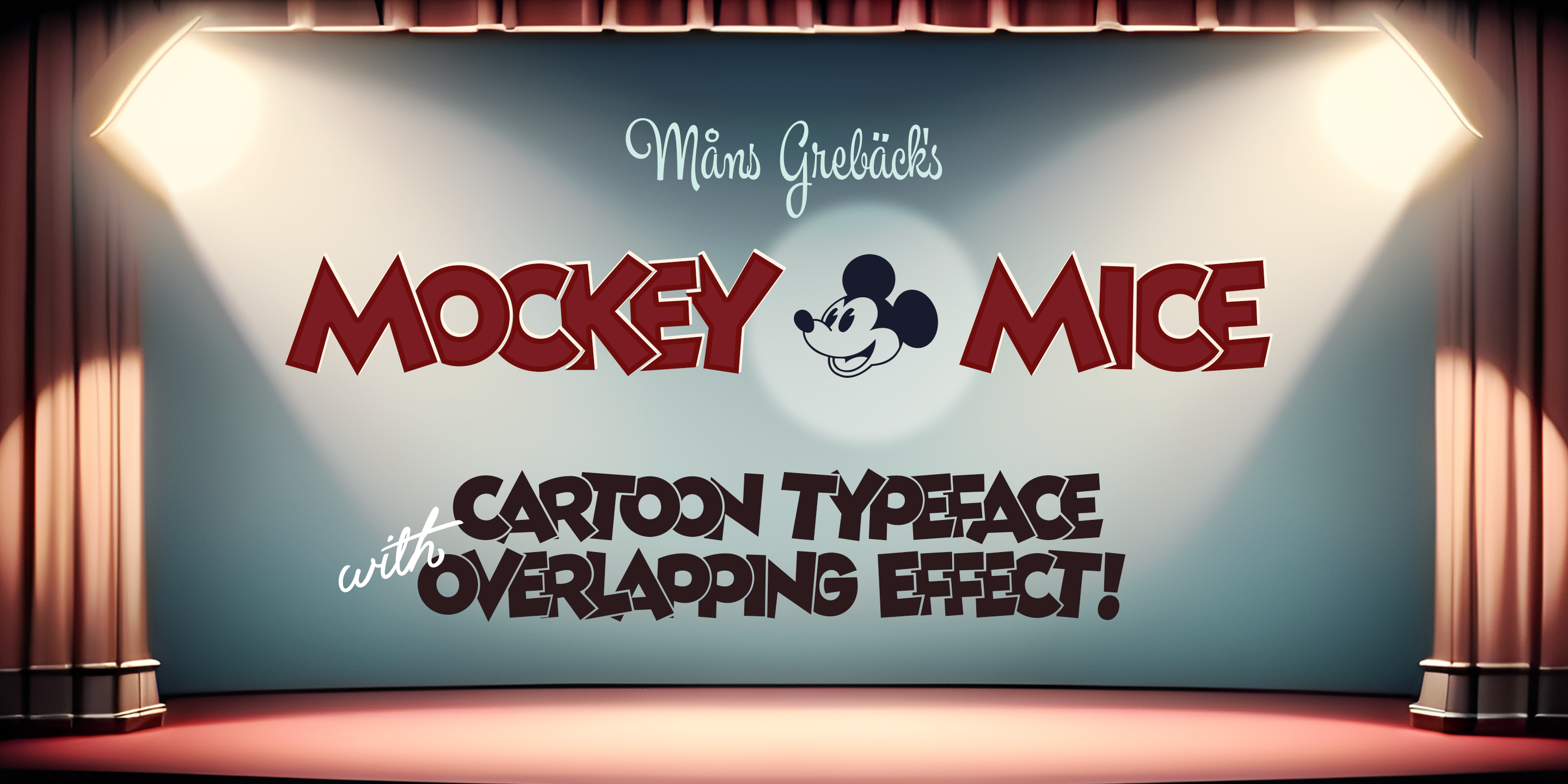
Mockey Mice Font is perfect for children's party invitations, cartoon animation titles, playful toy packaging, kids' entertainment branding, animated character logos, family fun center signage, and whimsical children's marketing that requires cute, animated typography.
This font is exciting because it captures the playful mischief and adorable charm of cartoon mice characters, featuring bouncy, animated letterforms that convey childlike wonder, playful energy, and the irresistible cuteness of beloved animated characters while maintaining delightful readability.
The Mockey Mice Font family includes regular and bold weights with playful variants, offering uppercase and lowercase letters, cartoon numerals, whimsical ornaments, cute punctuation marks, and animated decorative elements designed for children's entertainment applications.
Children's designers consistently choose Mockey Mice Font Free Download for projects requiring authentic cartoon character appeal and family-friendly entertainment value. This adorable typeface transforms ordinary children's communications into compelling statements of animated joy that immediately connect with young audiences and families seeking genuine cartoon magic and playful entertainment experiences. The font's whimsical character makes it exceptionally effective for children's entertainment companies, toy manufacturers, and family recreation venues where cartoon charm and child-friendly atmosphere must be communicated through every visual element. Its animated inspiration bridges classic cartoon traditions with contemporary children's marketing, making it invaluable for brands celebrating childhood imagination and family entertainment. The playfully crafted letterforms maintain their cartoon appeal across toy packaging and digital children's content, ensuring consistent brand recognition and animated atmosphere. Whether you're developing children's entertainment branding, creating animated character campaigns, or designing family fun center materials, this typeface provides the authentic voice and visual playfulness that distinguishes genuine children's entertainment from adult-oriented design, establishing immediate connection with families who appreciate cartoon quality and seek authentic animated experiences that celebrate the magical world of childhood imagination and cartoon entertainment.